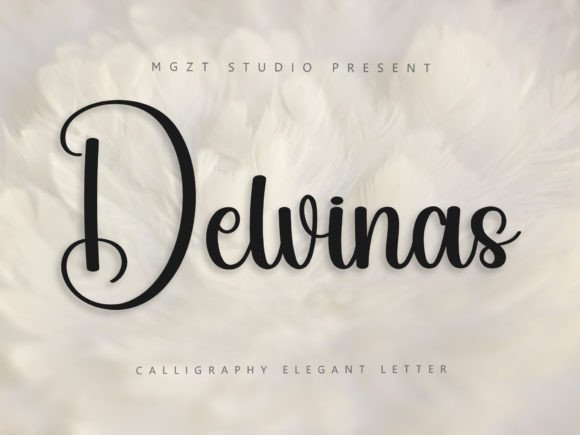
Delvinas: A Timeless Script Font for Editorial Design
There’s a moment in editorial design when you’re choosing a font that feels just right—like the perfect brushstroke on a page. That’s when Delvinas steps in, offering a blend of elegance and modernity that makes it ideal for a wide range of publishing needs. As a designer who has tested this font across various layouts, I can confidently say Delvinas is more than just a pretty typeface; it’s a versatile tool that supports both visual storytelling and readability.
A Handwritten Font with Classy Calligraphic Roots
Delvinas Latin is a handwritten font that carries the weight of its calligraphic heritage while embracing contemporary design. Its strokes are fluid yet precise, giving it a refined look that doesn’t compromise on readability. This balance between artistry and clarity makes it particularly appealing for editorial use where both aesthetics and function matter.
The font’s personality is warm and inviting, which aligns well with lifestyle blogs, creative newsletters, and content-driven publications. It feels like a handwritten note from a trusted friend, making it perfect for titles, headers, and pull quotes that need to stand out without overwhelming the reader.
Real-World Use Cases: From Blog Headers to Printables
When redesigning a lifestyle blog, I used Delvinas as the primary font for the header. The result was a fresh, approachable look that immediately captured attention. It worked equally well in a recipe ebook, where it added a personal touch to the title page and chapter openers.
For a wedding guide, Delvinas helped set the tone—elegant yet accessible. It was paired with a clean sans-serif font for body text, ensuring that the decorative elements didn’t overshadow the content. Similarly, in a coaching workbook, the font was used for section headings and motivational quotes, reinforcing a sense of care and intentionality.
Delvinas also shines in digital magazine layouts and newsletter graphics. Its legibility at smaller sizes ensures that it works well in mobile formats, while its visual appeal holds up in print materials such as course PDFs and printable planners. Whether it’s a cover text or a decorative accent, Delvinas adds character without sacrificing clarity.
Readability and Visual Hierarchy: What Works and What Doesn’t
One of the key strengths of Delvinas is its ability to support visual hierarchy. In an editorial layout, it’s excellent for titles, subtitles, and pull quotes, where it can draw the eye without being distracting. However, it’s not recommended for body copy or dense paragraphs, as its expressive nature might reduce legibility in long-form content.
For optimal readability, I recommend using Delvinas in combination with a serif or sans-serif font for body text. This pairing ensures that the design remains balanced, with the display font adding flair while the supporting font maintains focus on the content itself. When designing for screen reading, it’s important to test the font at various sizes to ensure it remains clear and easy to read.
Delvinas performs well in PDF exports and print materials, maintaining its visual integrity across different mediums. However, due to its expressive style, it may not be the best choice for formal reports or technical documents where a more neutral, professional font is preferred.
Font Pairing and Design Considerations
When working with Delvinas, consider pairing it with fonts that complement its script style. A modern serif font like Georgia or a clean sans-serif like Helvetica Neue can provide a strong contrast and enhance the overall design. For captions and navigation elements, a simple sans-serif font ensures consistency and ease of reading.
It’s also worth checking the included styles, alternates, ligatures, and weights before finalizing your design. Delvinas offers a range of options that can be tailored to fit specific editorial needs, from bold headlines to subtle accents. Additionally, verifying multilingual support and file formats is essential if you plan to use the font in international projects or digital downloads.
Conclusion
Delvinas is a font that bridges the gap between artistic expression and practical design. Its elegant yet contemporary style makes it a valuable asset for bloggers, publishers, and designers looking to elevate their editorial layouts. Whether you’re crafting a lifestyle blog, a recipe ebook, or a wedding guide, Delvinas offers a versatile solution that supports both creativity and clarity.